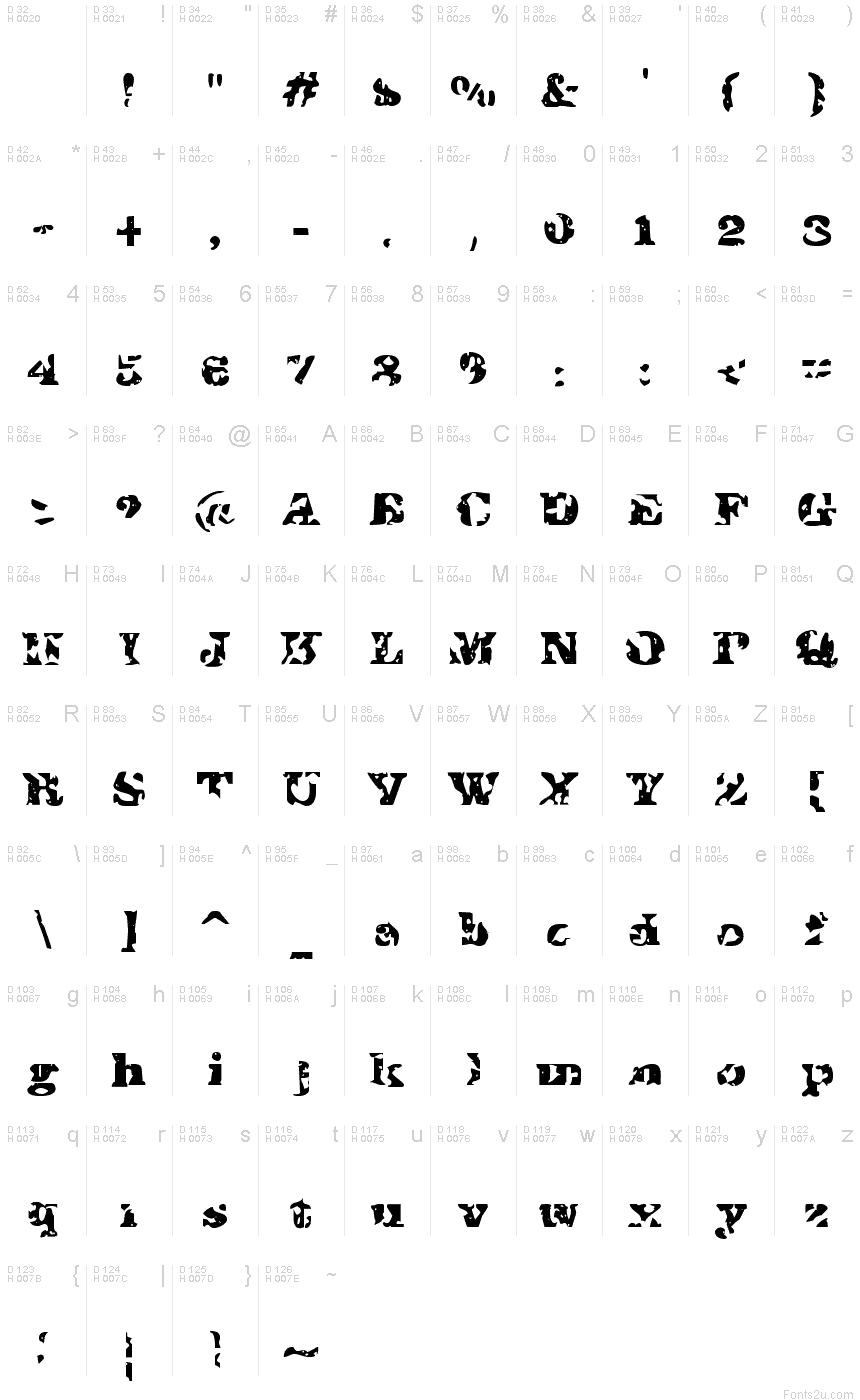
I Shot The Sheriff by Phillip Andrade is a free distorted Western display font with hefty, irregular letters and a rough-cut silhouette. Rounded bulges meet sharp notches across the forms. Small punched-out holes add a convincing bullet-scarred detail.
As an illustrated outlaw title, it suits Western game graphics, concert posters, craft beer packaging, and themed event signage. The lopsided shapes and recurring shot marks tie those uses to saloon imagery, pulp adventure, and rowdy rock artwork.